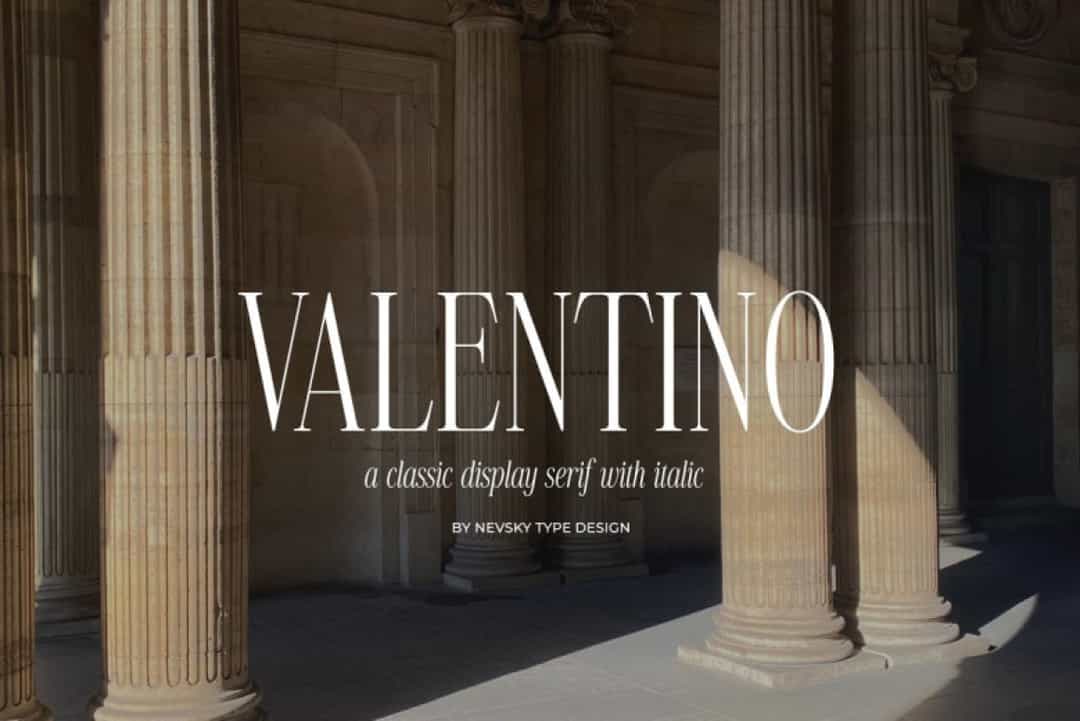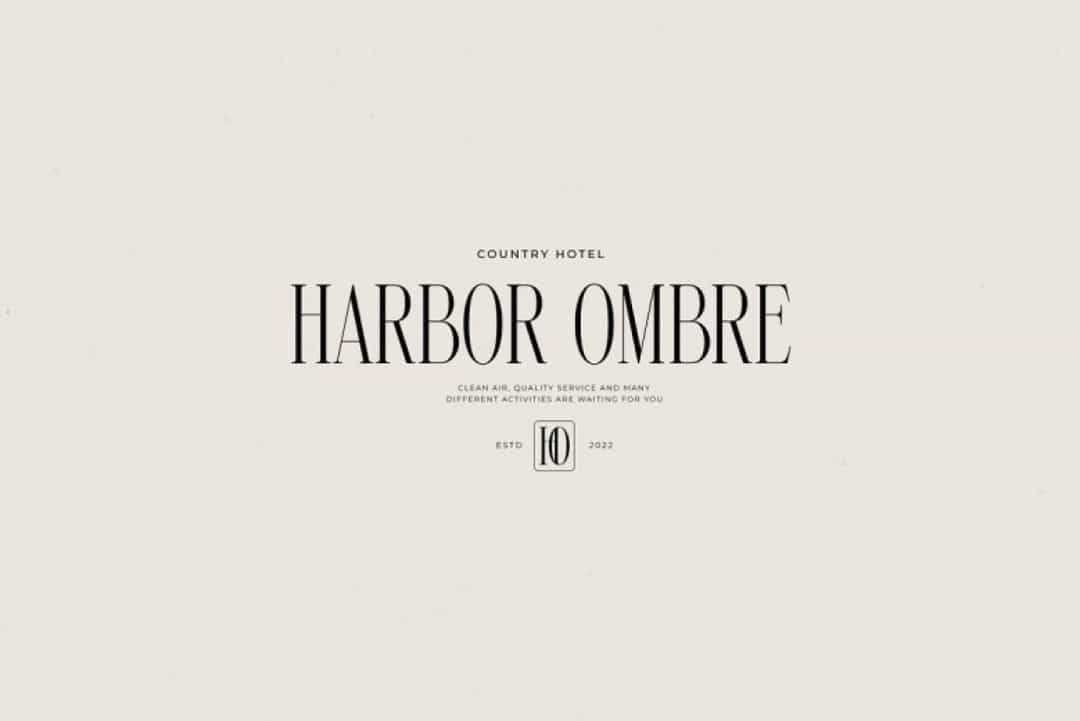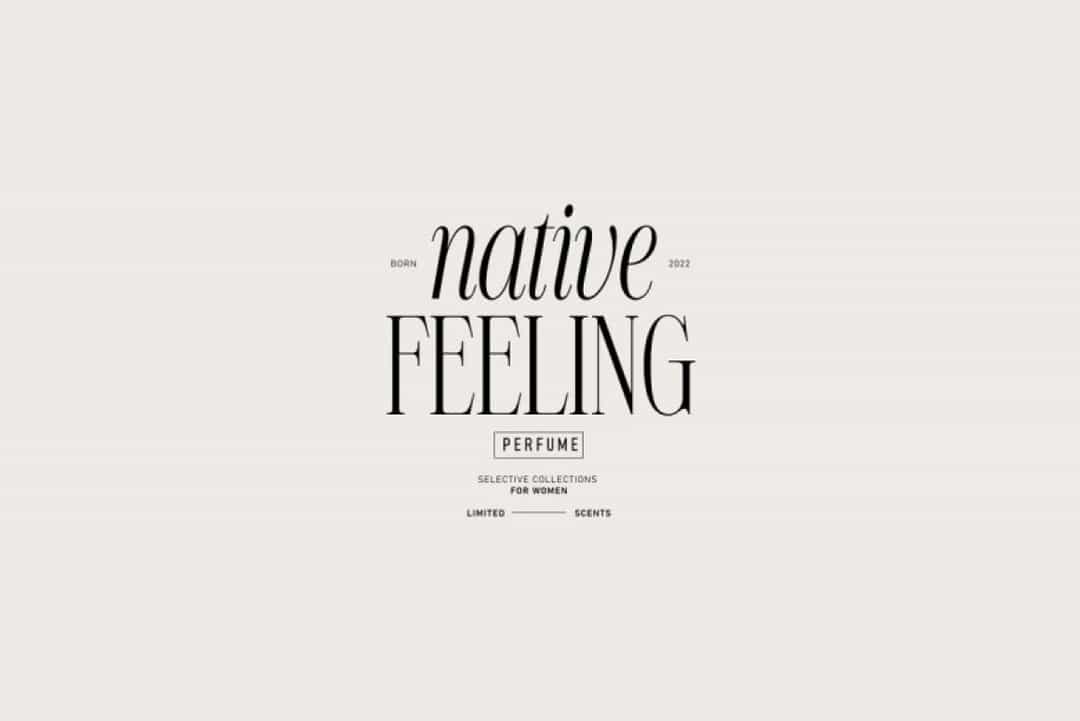
Valentino is an elegant yet robust serif typeface which can be useful in any situation. Perfect for high-quality text environments as well as serving as an eye-catching display font.